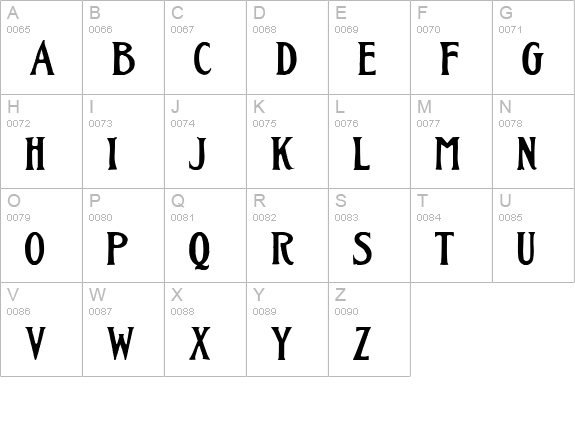
Classic Font Details
The Classic font exudes timeless elegance and sophistication with its beautifully crafted serifs and graceful curves. This font is perfect for adding a touch of traditional charm to any project, whether it be invitations, logos, or branding materials. Its versatility and readability make it a popular choice for designers looking to achieve a classic look with a modern twist. Best of all, the Classic font is available for free download at FontsMarket.com, making it easily accessible for anyone looking to elevate their designs with a touch of timeless beauty. Don't miss out on this opportunity to enhance your projects with the Classic font - download it today and add a touch of classic sophistication to your work!